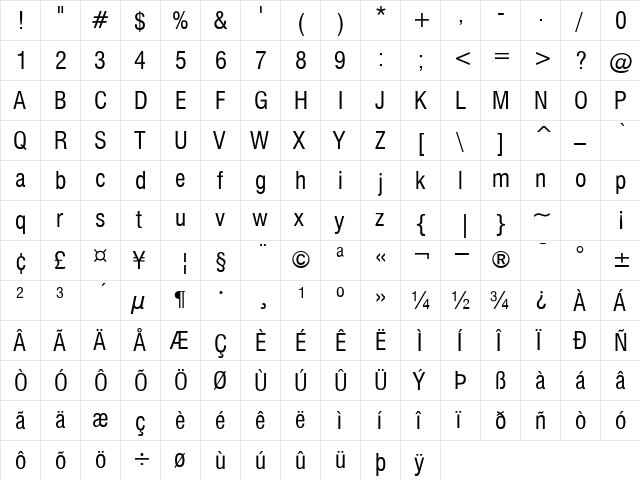
HalvettCondensed Regular
Design Context for HalvettCondensed Typeface
HalvettCondensed offers clean, dependable letterforms without strong stylistic allegiance, making it a practical choice for designers who need flexibility. Its narrow stance lets it pack a punch even in space-constrained designs.
Pro Tip: Pair HalvettCondensed with a font of contrasting weight or personality to build a more expressive typographic hierarchy.